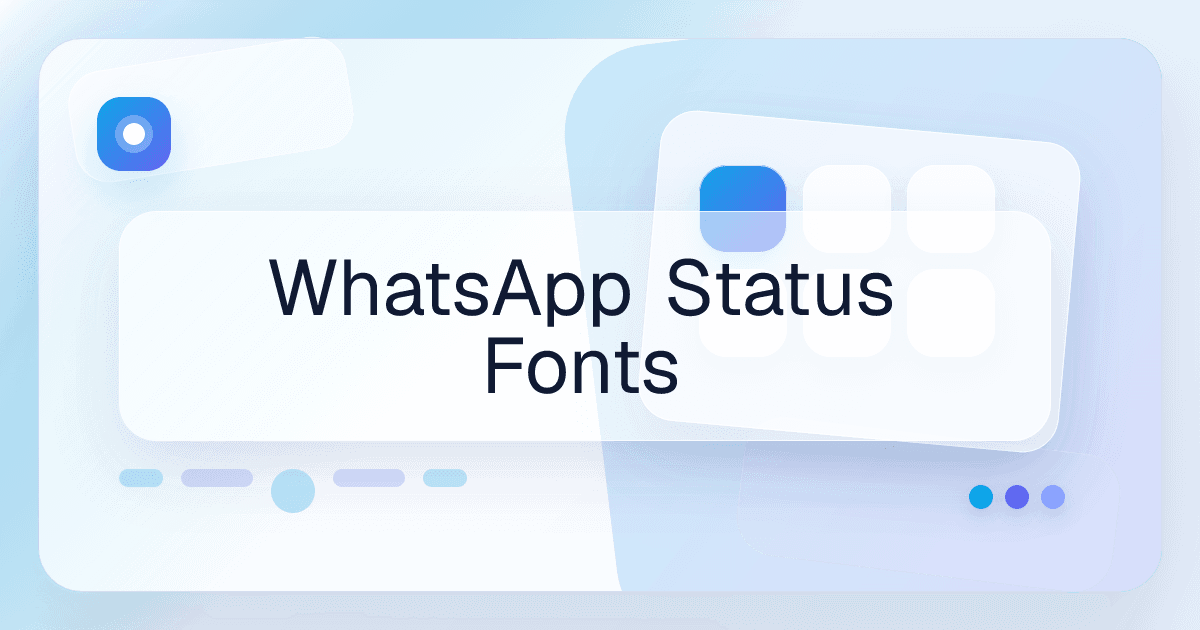
WhatsApp Status Fonts
WhatsApp status text usually performs better with cleaner Unicode styles that still feel personal. Overly dense decoration can reduce readability in short status updates.
Daily status lines
Profile names
Short chat-friendly intros
Use bold or italic leaning styles before trying heavier decoration.
Keep short status messages readable on small screens.
Preview how emoji and styled text appear together before posting.
What works in WhatsApp status text
WhatsApp status text usually performs best when the final line is brief, clear, and only lightly stylized. Bold, italic, and restrained decorative accents tend to feel more natural than heavier formatting.
What fonts are best for WhatsApp status text?
Cleaner bold, italic, and lightly decorative styles are usually best because they keep short status lines readable.